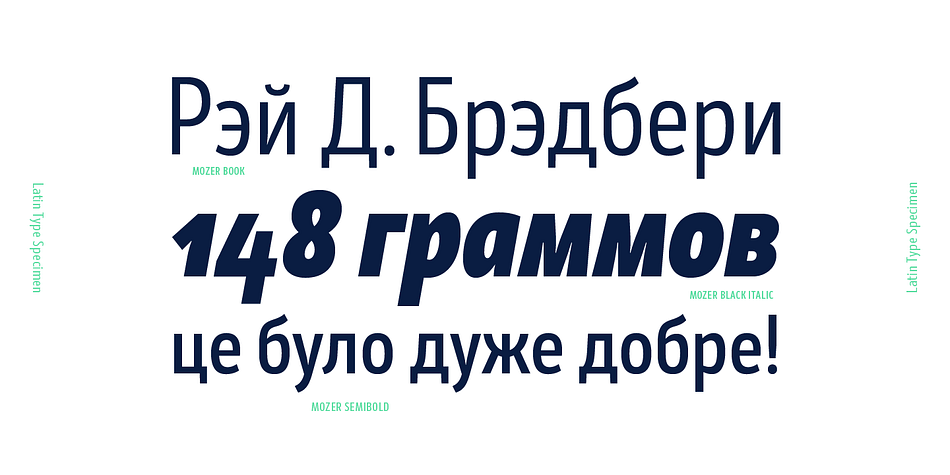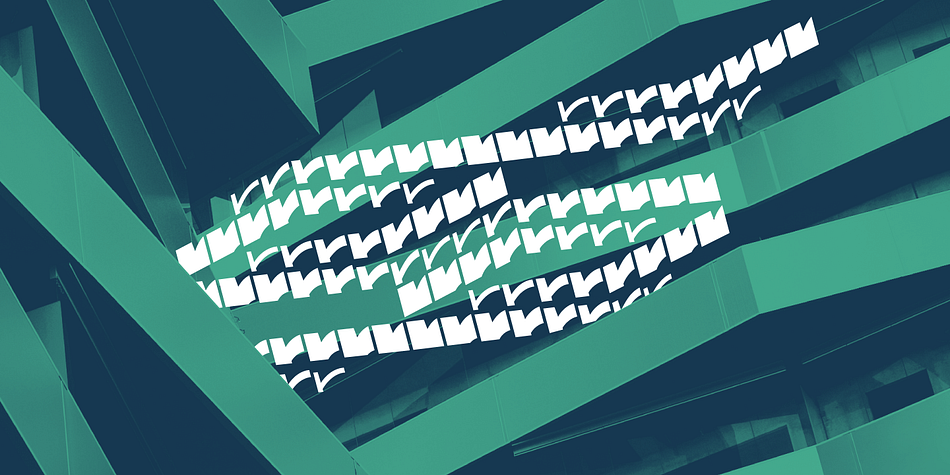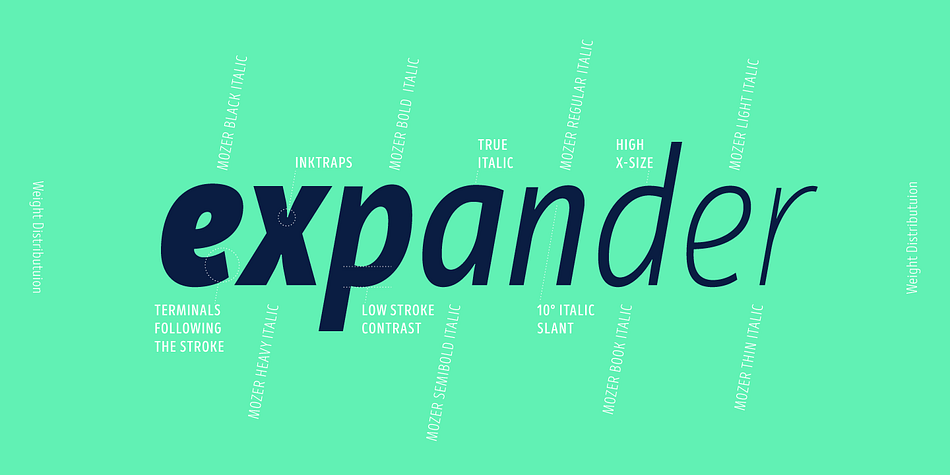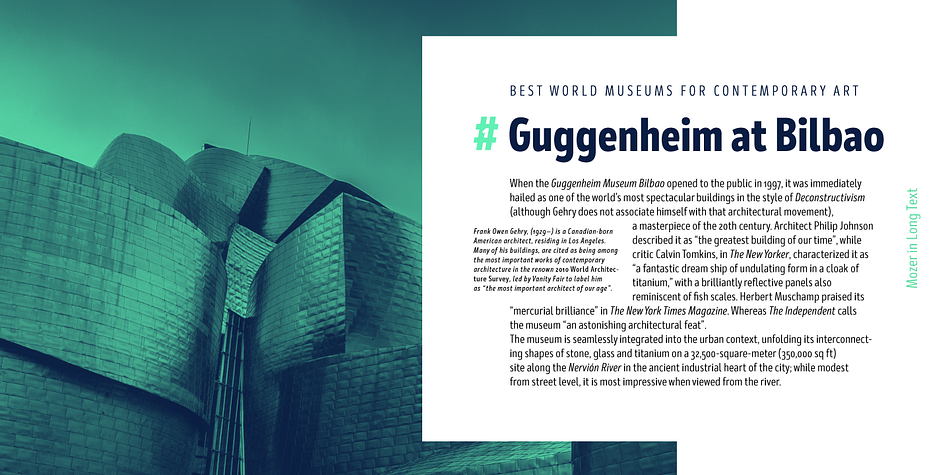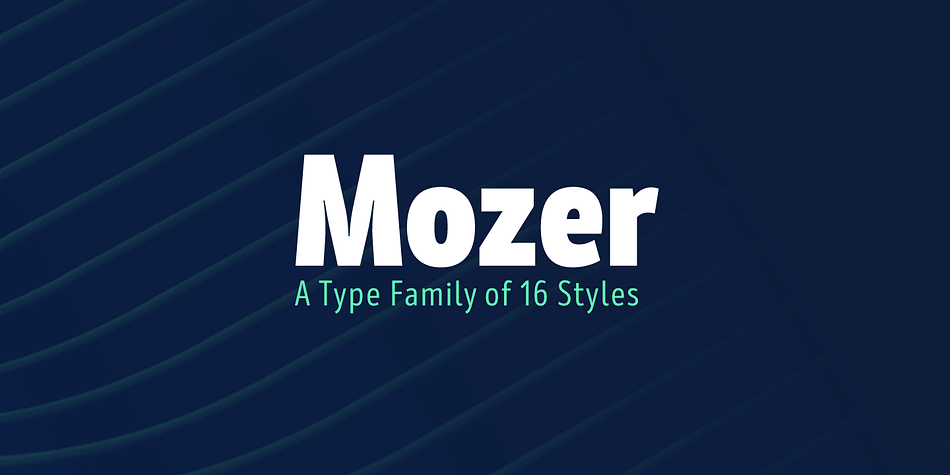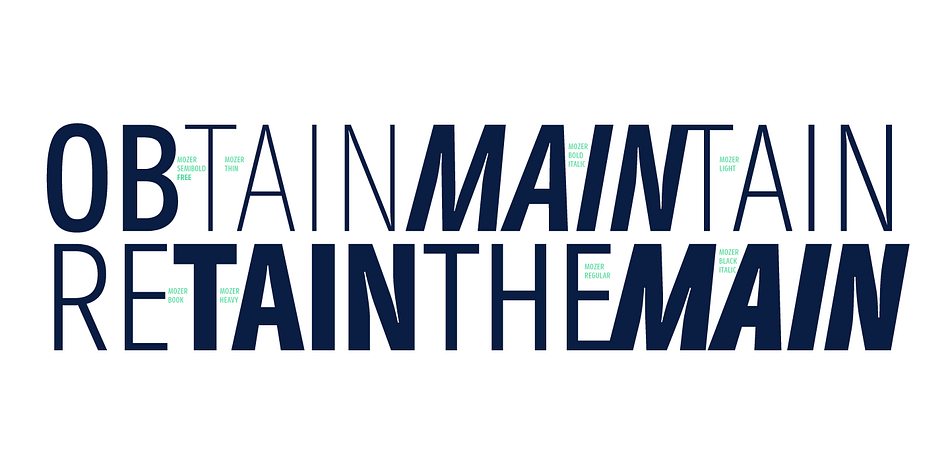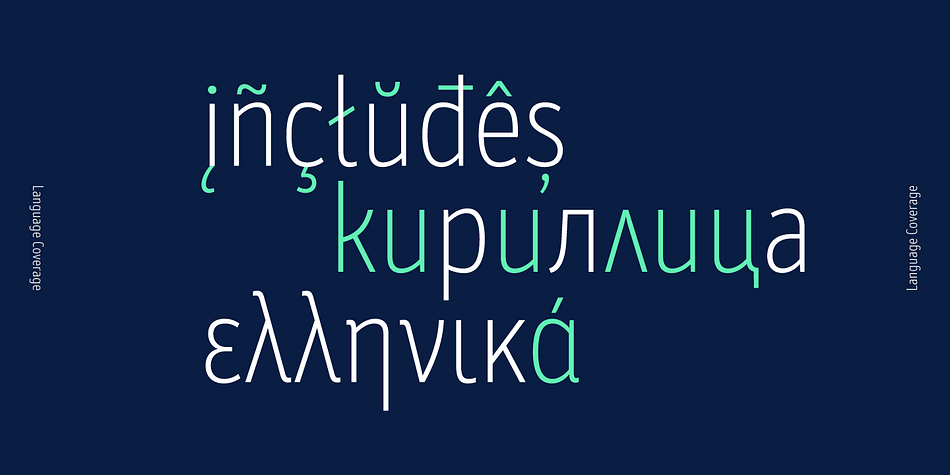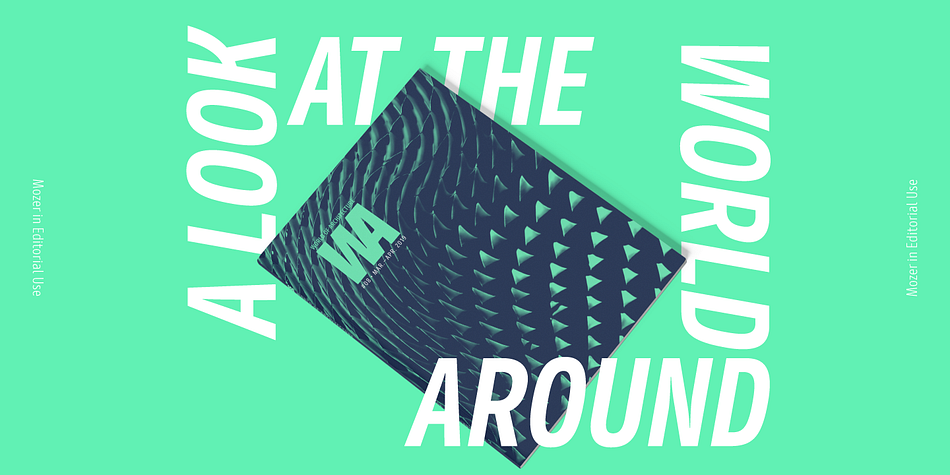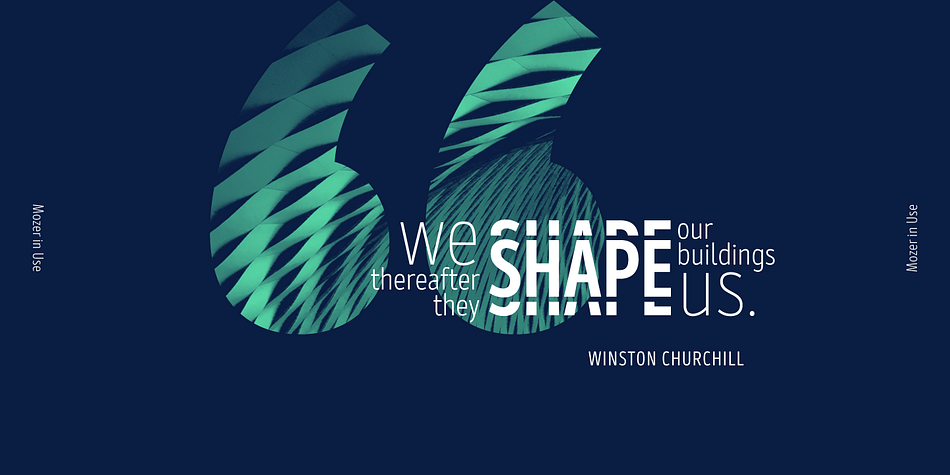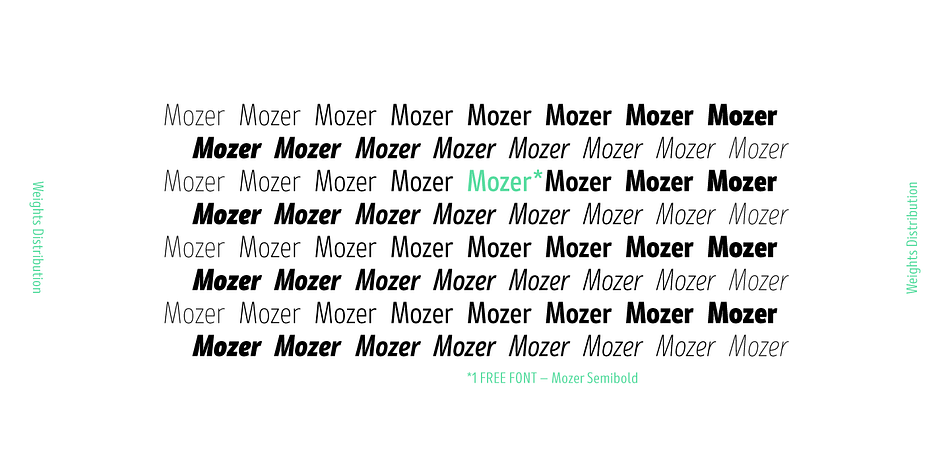
Designed by Ani Petrova, Mirela Belova and Nikolay Petroussenko, Mozer is a sans serif font family. This typeface has sixteen styles and was published by Fontfabric.
Mozer is a semi-condensed neo-grotesque type family of 16 styles, ranging from Thin to Black and matched with true italics. With a generous x-height, economical width, moderate contrast and an all-around solid appearance, this typeface lends itself well to headlines. Uncompromising legibility meets a distinct contemporary spirit, visible even in small details like the discrete ink traps. Mozer covers Extended Latin, Cyrillic and Greek and is suited with plenty of OpenType features, such as localizations, ligatures; four types of numerals including figures and tabular; case-sensitive forms; alternatives, and more.
• Over 825 glyphs in 16 styles (Thin to Black);
• Extended Latin, Cyrillic and Greek scripts for more than 130 languages;
• Tall and balanced x-height;
• Semi-condensed width proportions;
• Moderate contrast and vertical stress;
• Neo-grotesque characteristics and terminals with humanistic flavor.